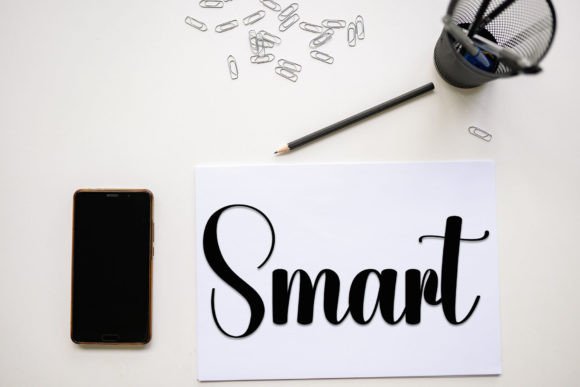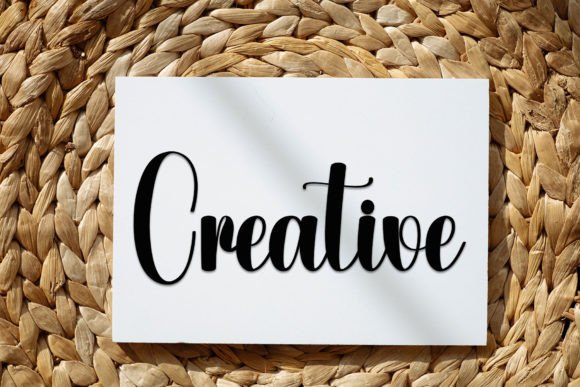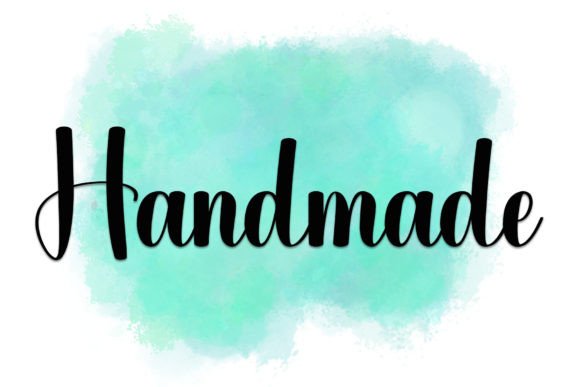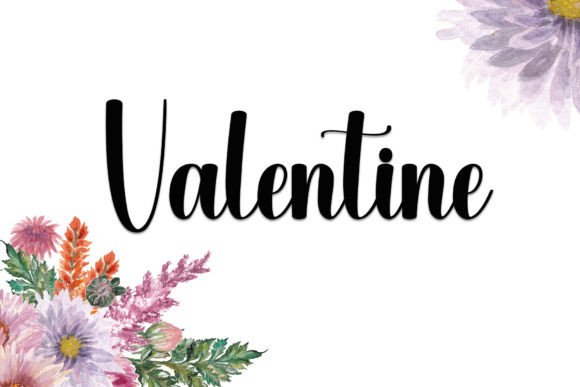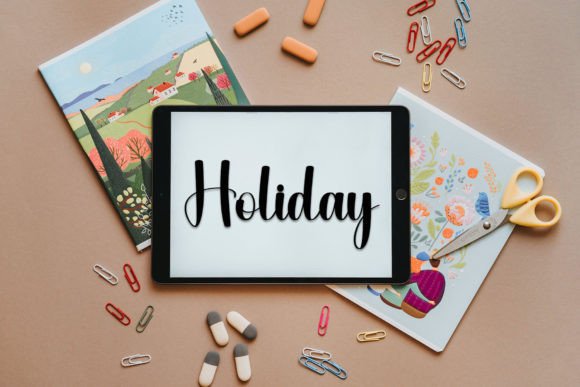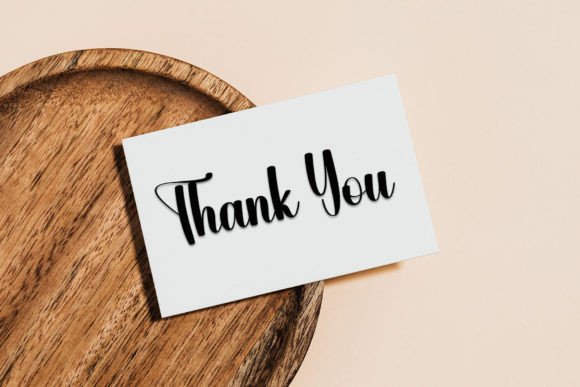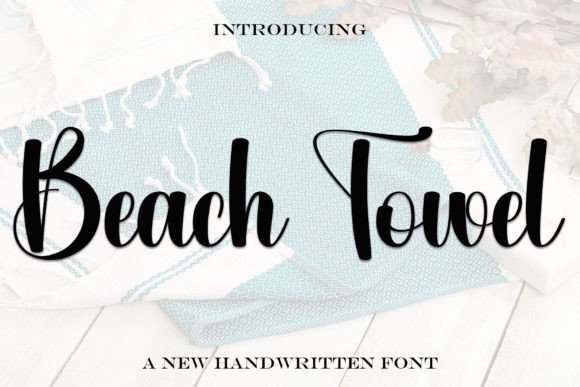
Introducing Beach Towel Font: The Ultimate Holiday Typeface
Are you looking for a font that embodies the spirit of the holiday season? Do you want to add a touch of charm and whimsy to your designs? Look no further than Beach Towel Font, a festive and happy typeface that’s perfect for greeting cards, gift labels, and holiday-themed projects.
A Festive and Happy Typeface
Beach Towel Font is a unique and decorative typeface that’s designed to capture the essence of the holiday season. With its playful and cheerful design, it’s sure to bring a smile to anyone’s face. The font features decorative elements and a unique flair that sets it apart from other typefaces. Whether you’re designing a holiday greeting card, a gift label, or a festive poster, Beach Towel Font is the perfect choice.
Beach Towel Font is specifically designed for holiday-themed projects. Its cheerful and nostalgic atmosphere makes it perfect for:
• Greeting cards: Create beautiful and festive holiday greeting cards that will make your loved ones feel special.
• Gift labels: Add a touch of charm to your gift labels and make them stand out from the crowd.
• Holiday-themed projects: Use Beach Towel Font to create festive posters, banners, and other holiday-themed projects that will add a touch of magic to your designs.
Beach Towel Font is PUA (Private Use Area) coded, which means you can access all the amazing glyphs and ligatures easily. This makes it simple to use the font in your designs and projects, without having to worry about complicated coding or technical issues.
What is PUA Coding?
PUA coding is a way of encoding fonts that allows designers to access special characters and glyphs easily. This means that you can use Beach Towel Font to create beautiful and unique designs, without having to worry about the technical details.
Benefits of Using Beach Towel Font
There are many benefits to using Beach Towel Font in your designs. Some of the benefits include:
• Unique and decorative design: Beach Towel Font features a unique and decorative design that’s sure to make your designs stand out.
• Easy to use: The font is PUA coded, making it easy to access all the amazing glyphs and ligatures.
• Perfect for holiday projects: Beach Towel Font is specifically designed for holiday-themed projects, making it the perfect choice for greeting cards, gift labels, and other festive designs.
• Cheerful and nostalgic atmosphere: The font brings a cheerful and nostalgic atmosphere to your designs, making it perfect for creating festive and fun projects.
Tips for Using Beach Towel Font
Here are some tips for using Beach Towel Font in your designs:
• Use it for headlines: Beach Towel Font is perfect for headlines and titles, where you want to make a bold and festive statement.
• Experiment with colors: The font looks great in bright and bold colors, so don’t be afraid to experiment and find the perfect color scheme for your design.
• Pair it with other fonts: Beach Towel Font looks great when paired with other fonts, so try pairing it with a simple sans-serif font for a contrasting look.